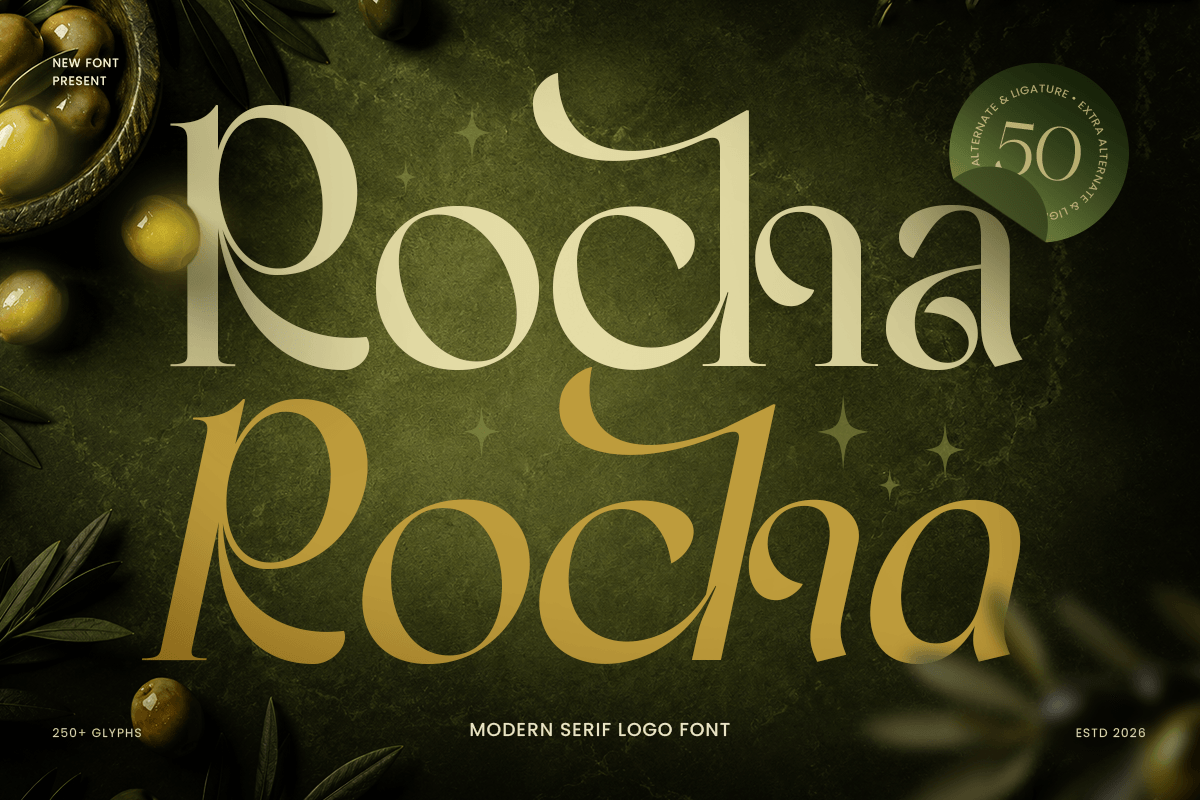
Rocha
-Elegant Luxury Serif Font
Rocha - Elegant Luxury Serif Font
Rocha is an elegant luxury serif font designed to bring sophistication, beauty, and timeless character to premium design projects. With refined serif details, balanced proportions, and a graceful visual style, this typeface is perfect for luxury branding, fashion identities, editorial layouts, packaging, and elegant logo design.
Crafted for designers who seek a polished and exclusive typographic style, Rocha combines classic serif elegance with modern refinement. Its sophisticated letterforms create a strong yet graceful presence, making it ideal for beauty brands, boutique identities, wedding stationery, magazines, and premium lifestyle products.
Whether used for brand marks, headlines, invitations, or packaging designs, Rocha delivers a luxurious and memorable impression across both print and digital media.
Rocha – Elegant Luxury Serif Font Features
• Elegant serif design with timeless luxury appeal
• Perfect for branding, logos, editorials, and premium packaging
• Refined letterforms with sophisticated visual balance
• Prepared with regular and italic serif style
• Ideal for fashion, beauty, wedding, lifestyle, and boutique industries
• OpenType features for enhanced typographic styling
Create timeless sophistication with Rocha – the perfect luxury serif font for elegant branding, premium logos, and refined editorial design. ✨